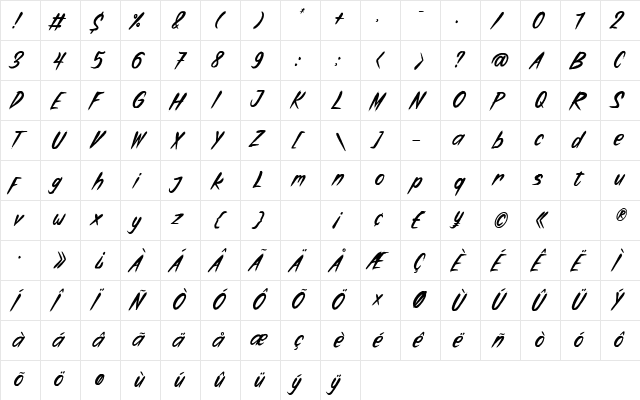
Haunter Regular
Design Context for Haunter Typeface
Haunter is a composed and adaptable typeface that performs quietly and consistently across a wide range of design contexts.